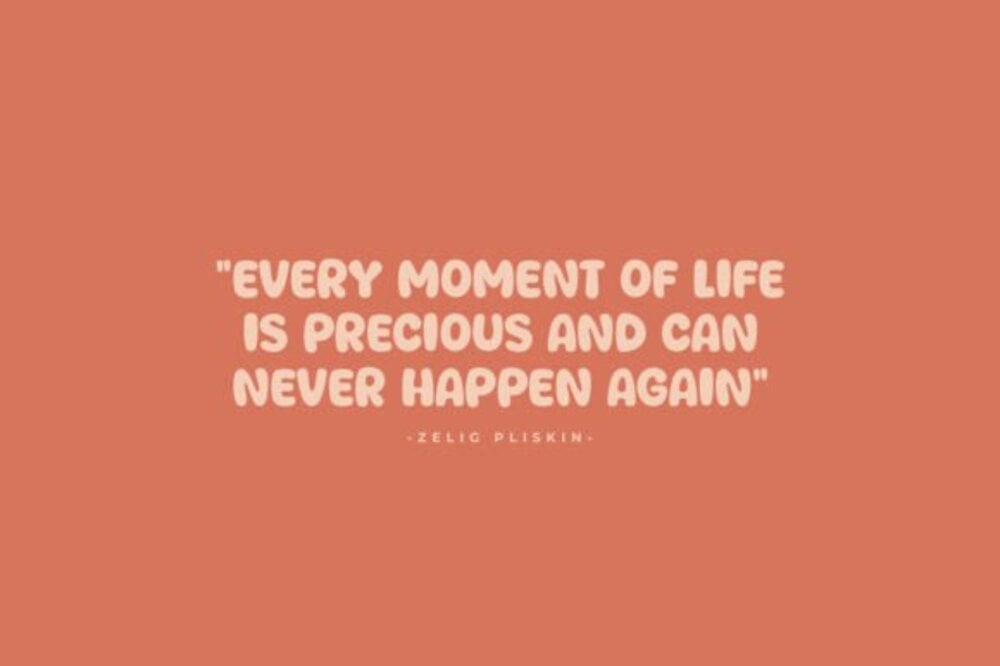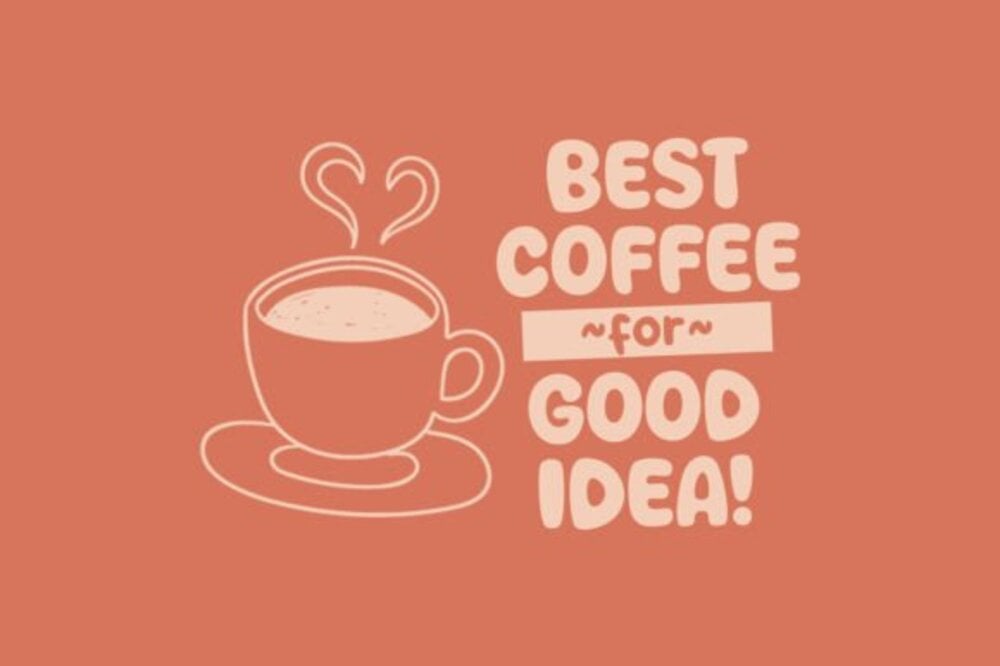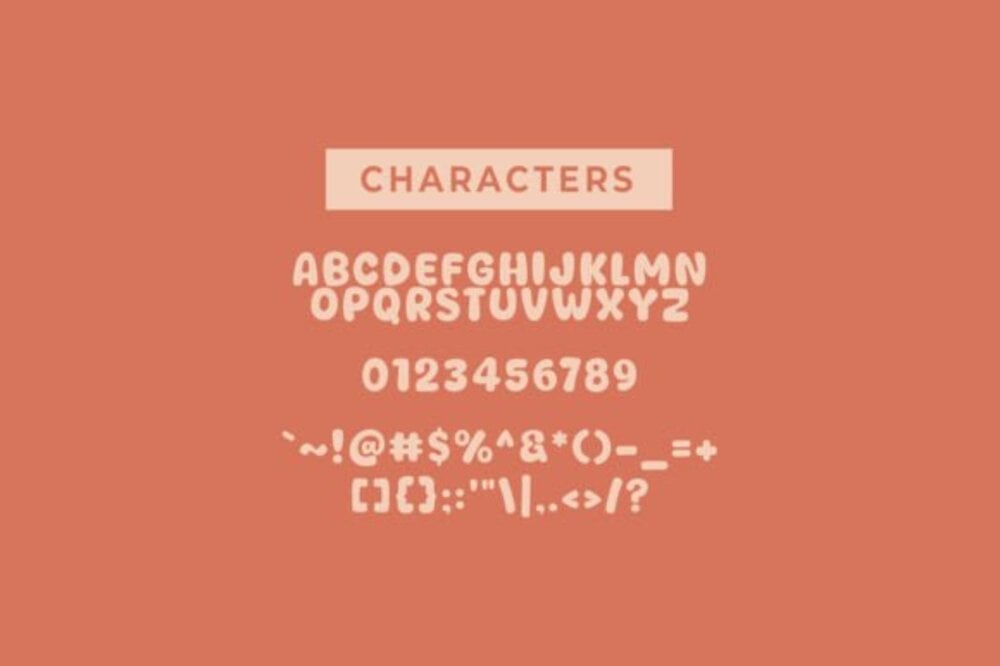
Socafe Font
Socafe Font is a stylish and contemporary typeface that blends sophistication with casual charm. Featuring smooth curves and modern proportions, it evokes a sense of comfort and elegance, making it ideal for cafĂ© branding, lifestyle blogs, and food-related projects. Its balanced design ensures readability while maintaining a relaxed, inviting vibe. Socafe Font’s versatile style adds a touch of warmth and personality to any creative venture.